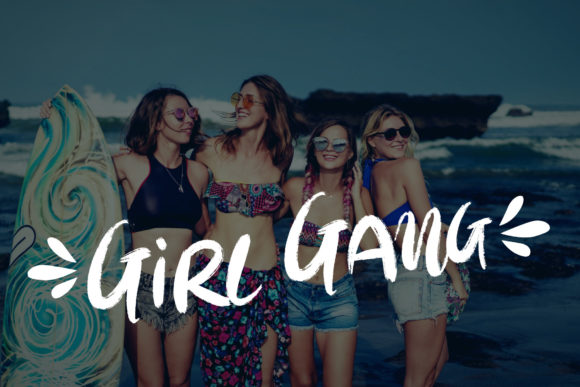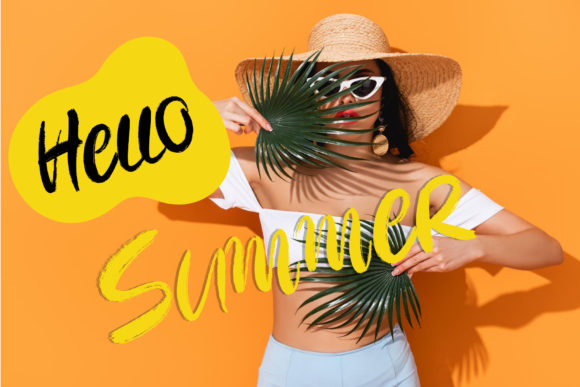
My Girl Font
db-ku.com - Script & Handwritten -- My Girl is a cool and brushed handwritten font. The font is suitable for any branding project like logo, t-shirt printing, sporting design, and many more. It will look outstanding in a wide range of contexts.